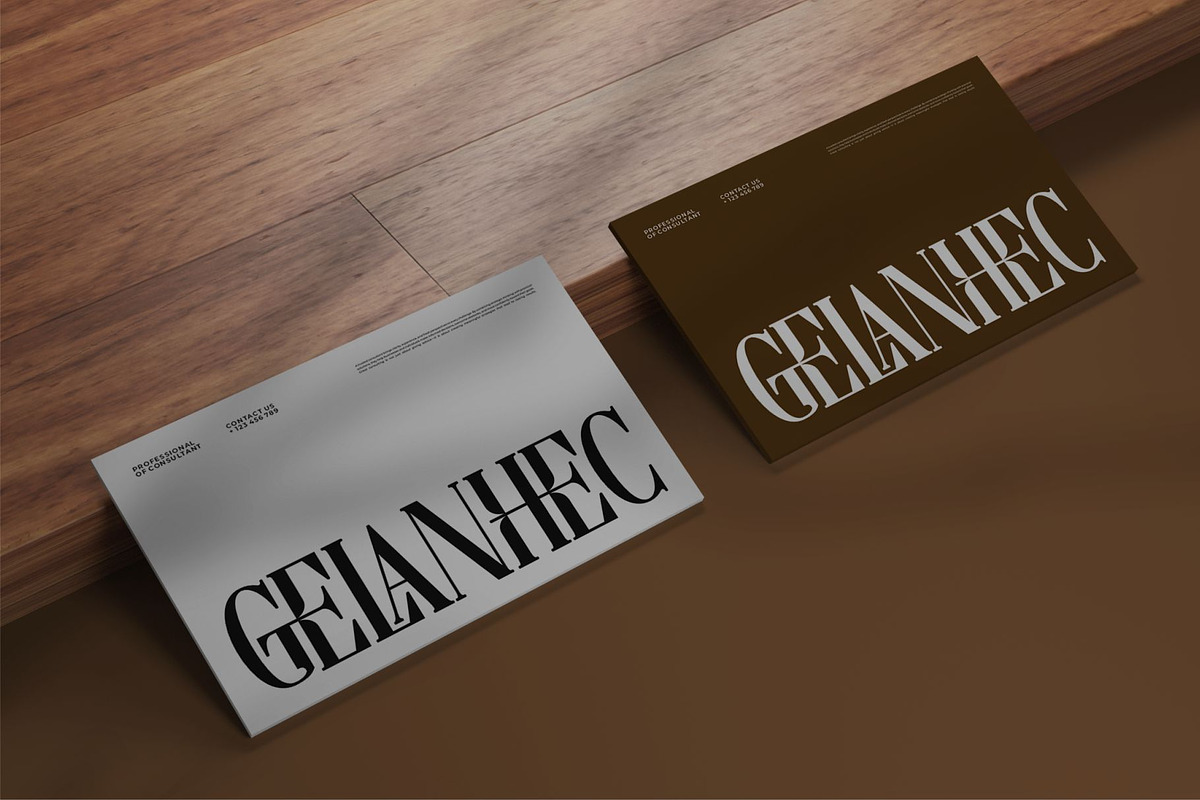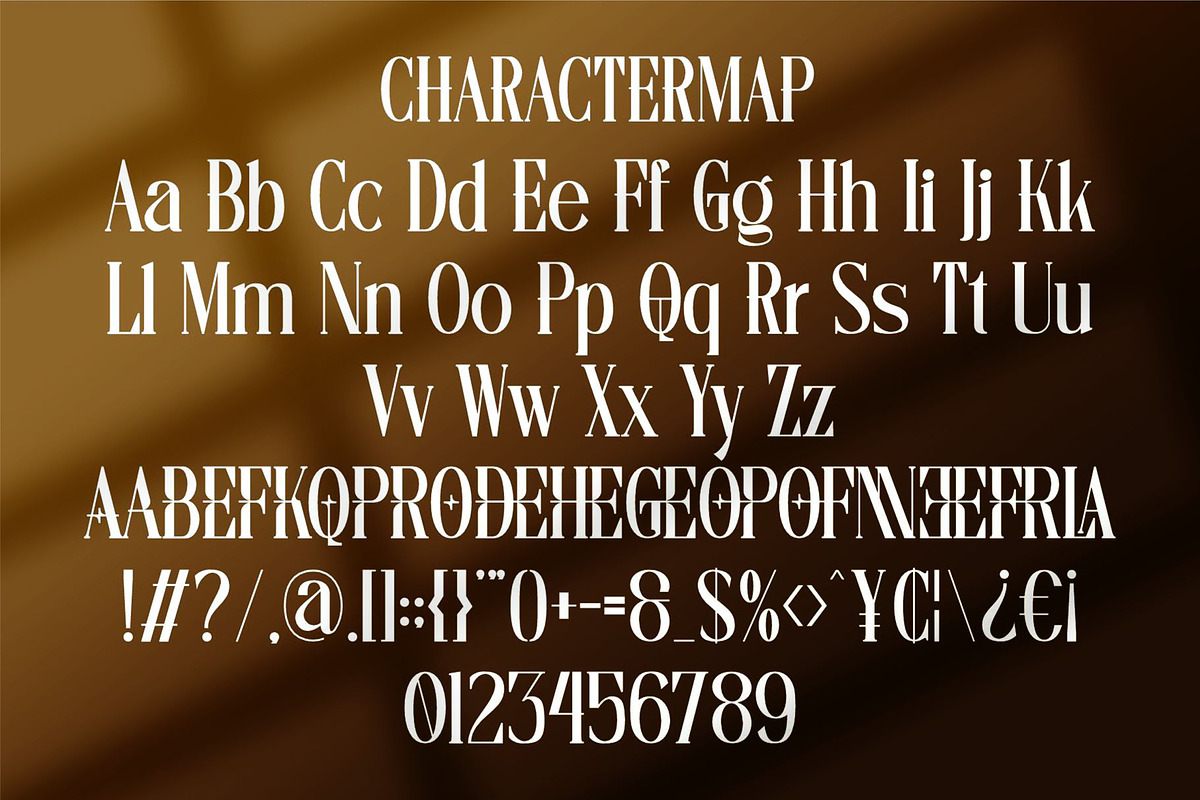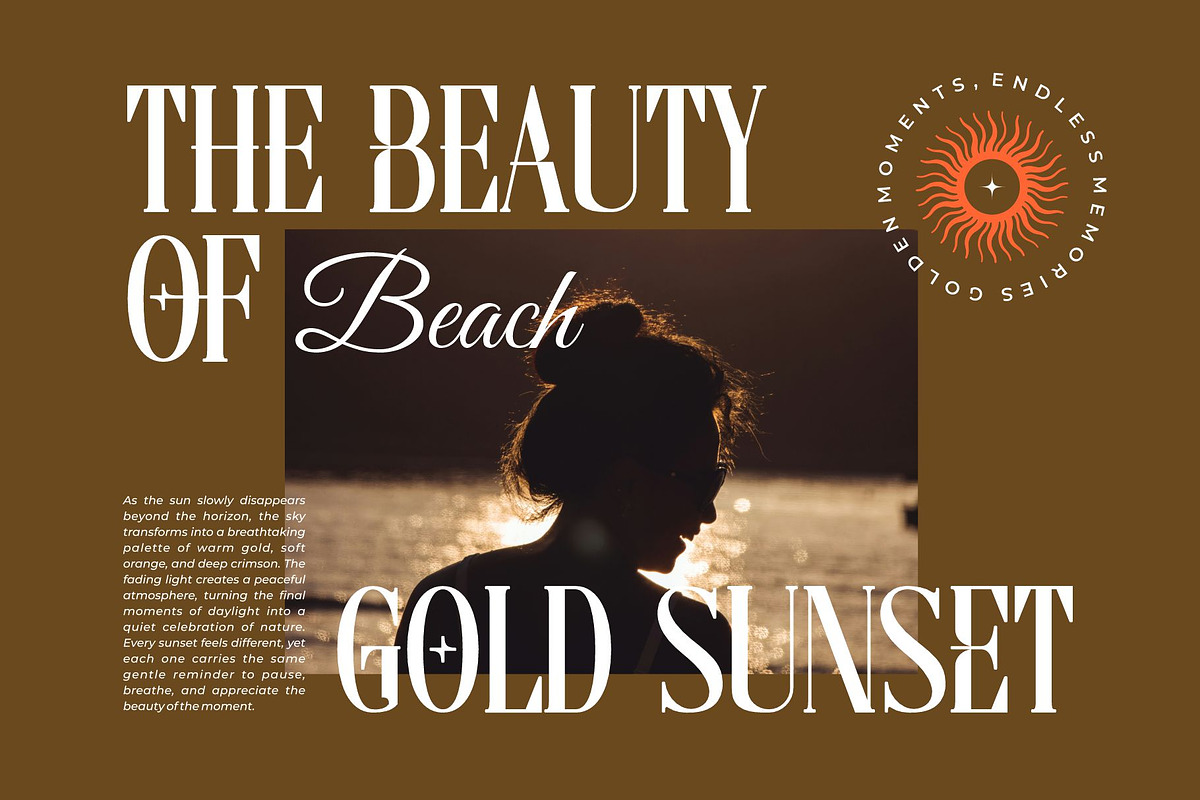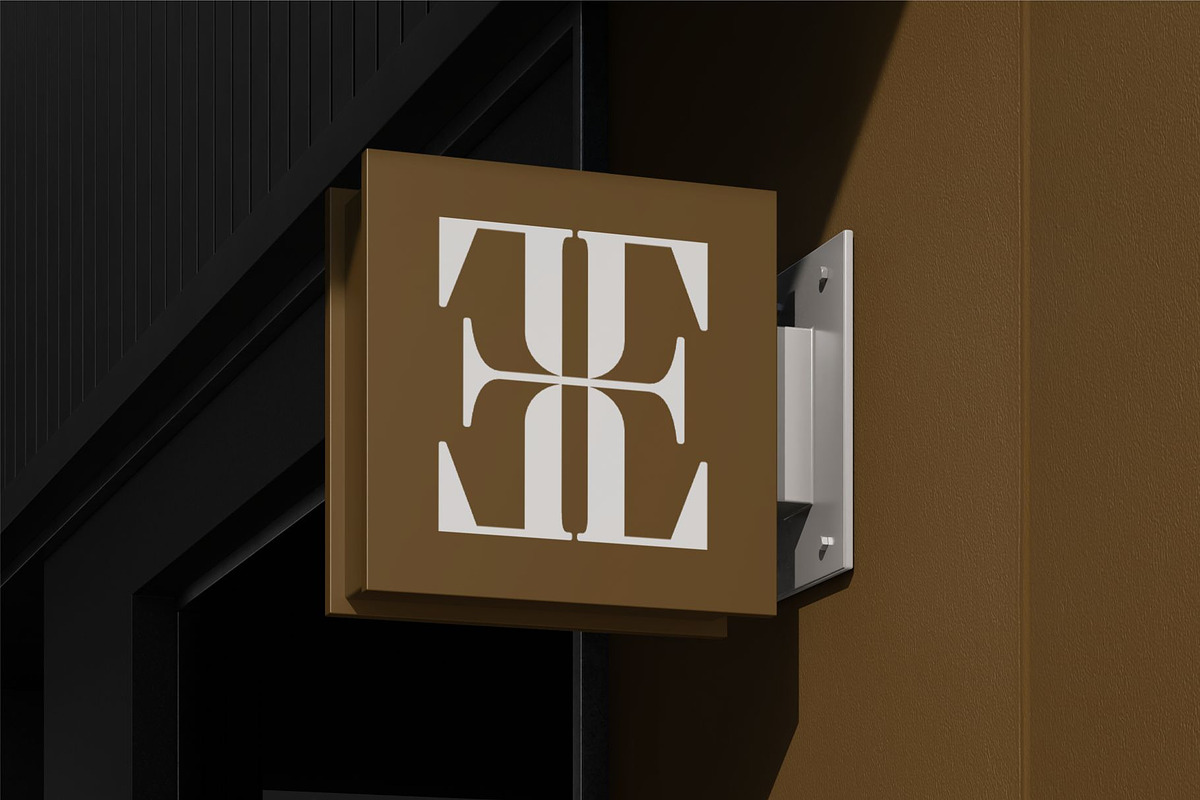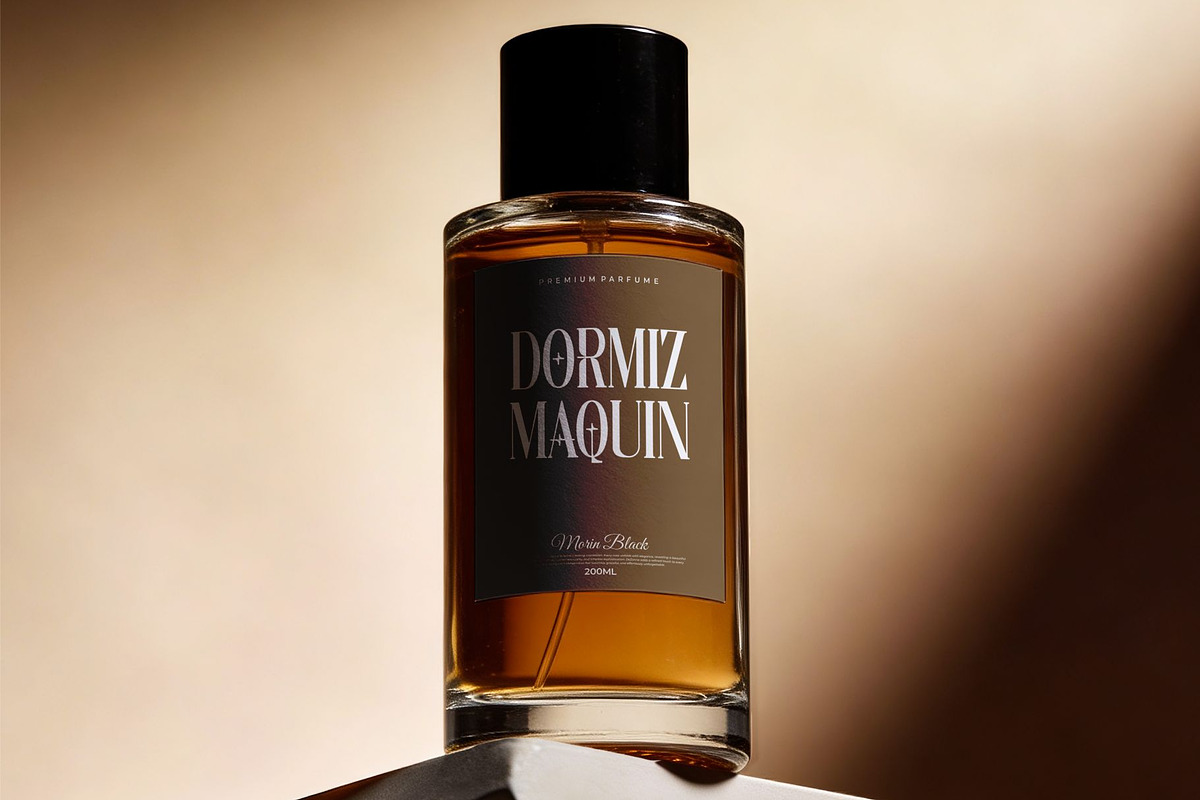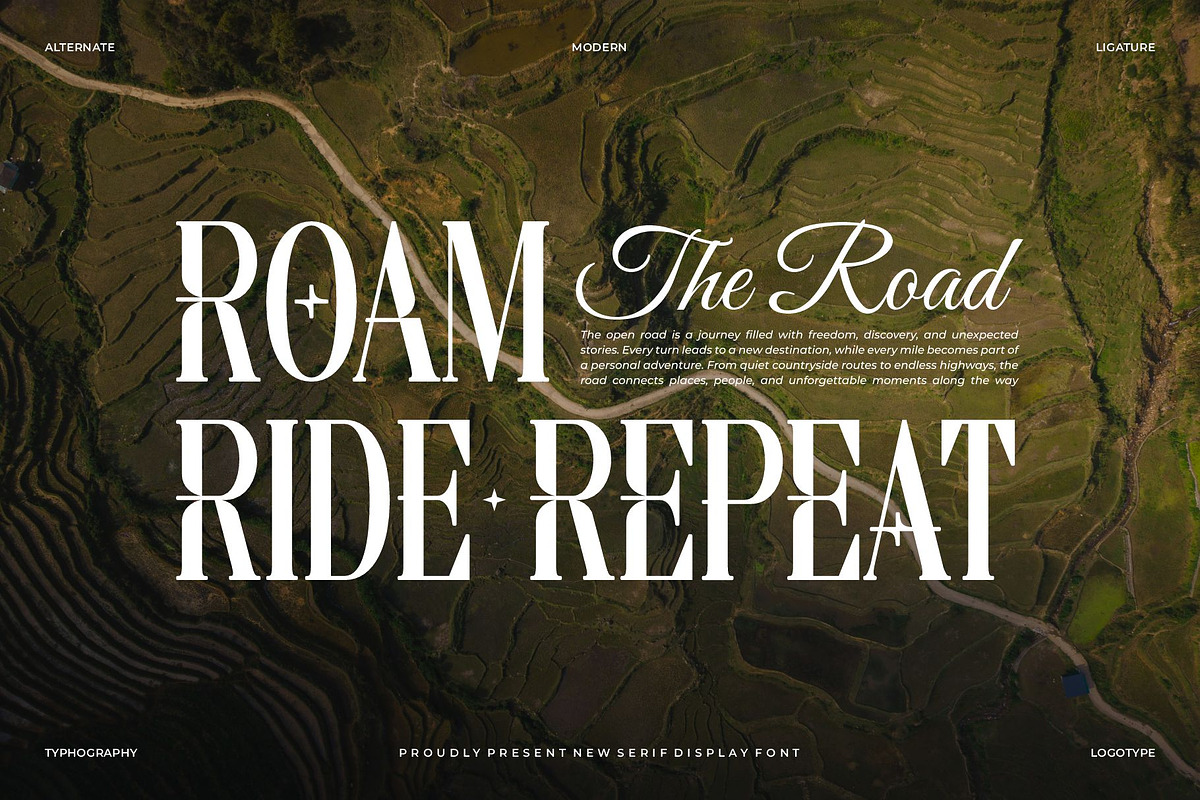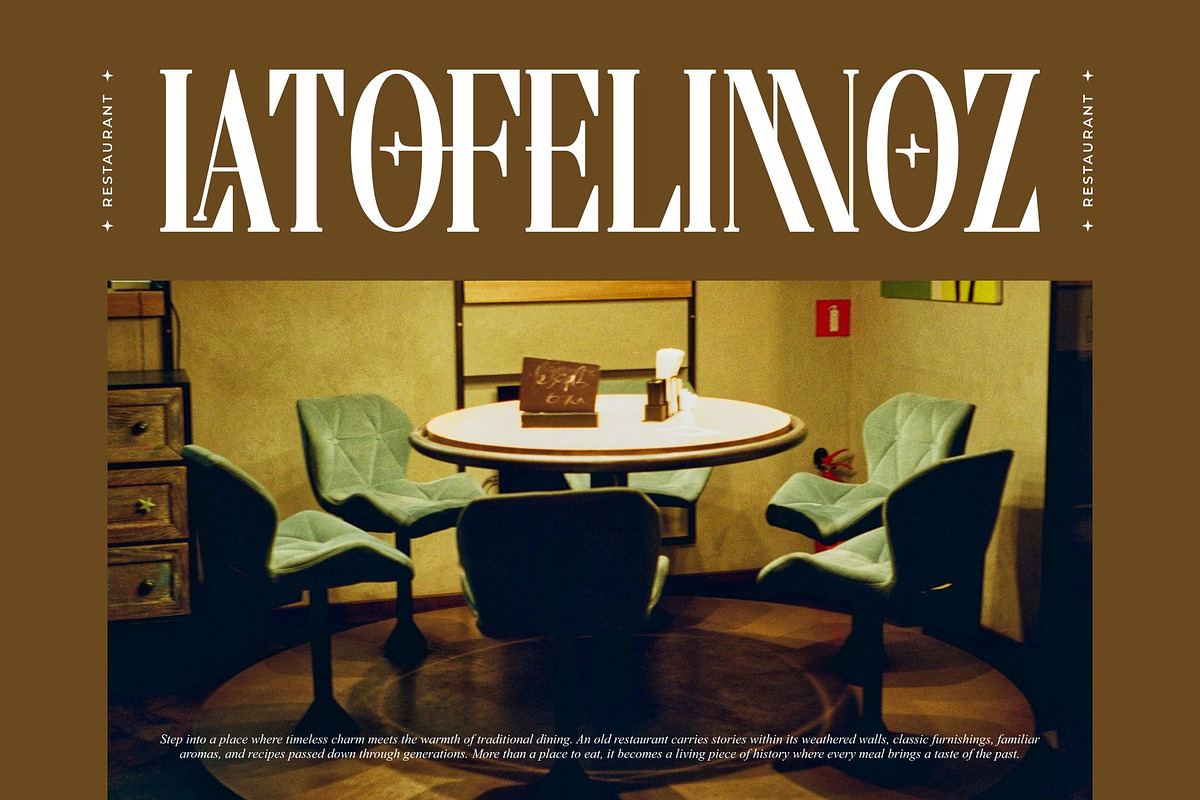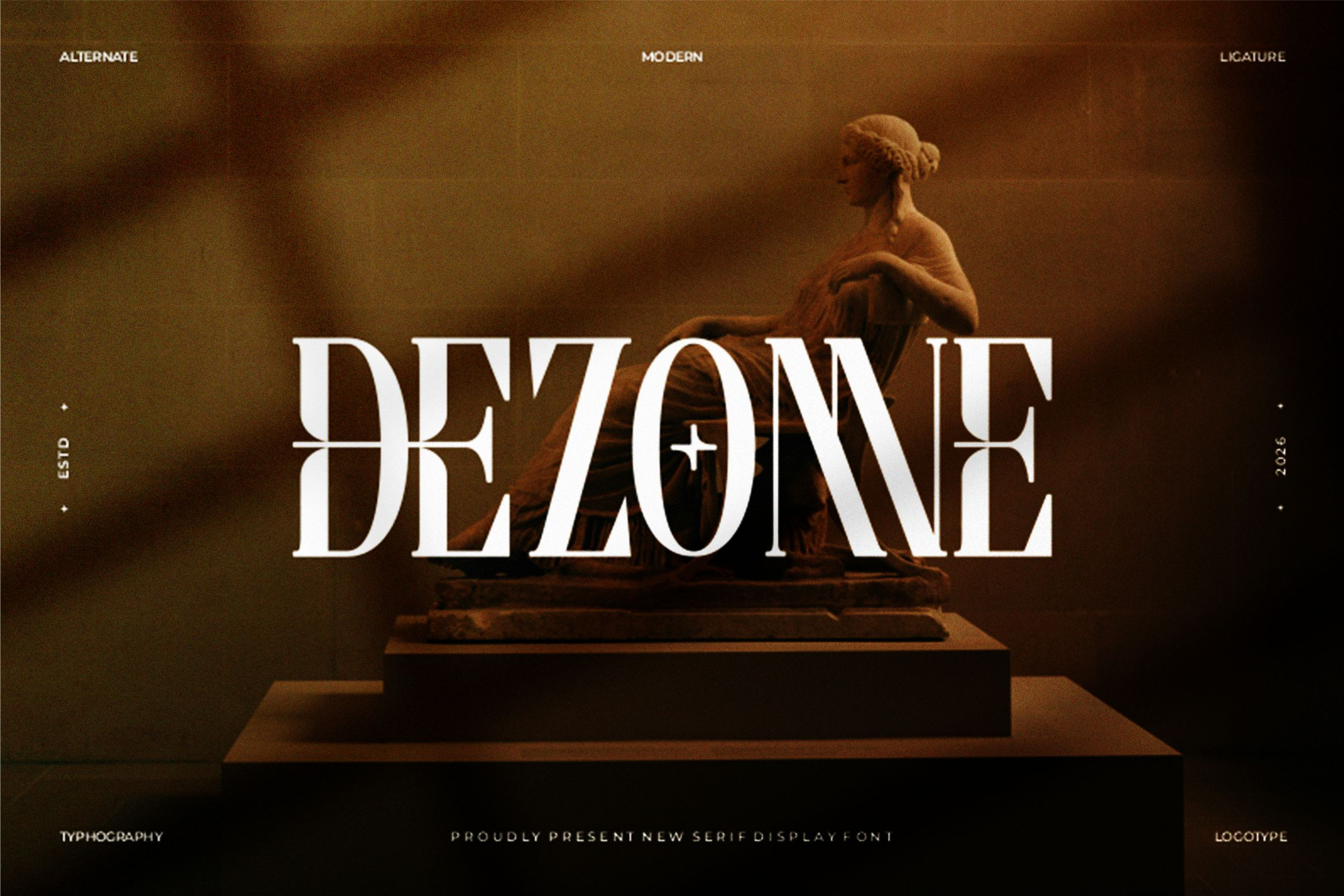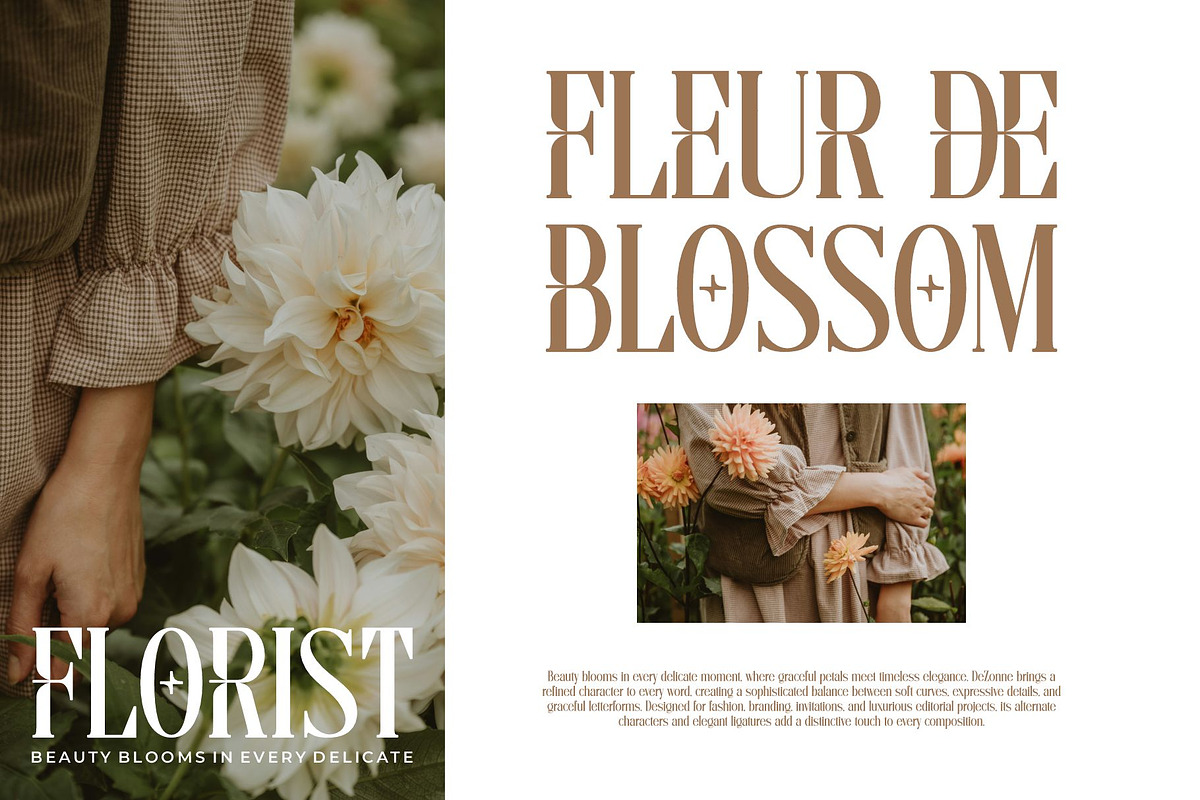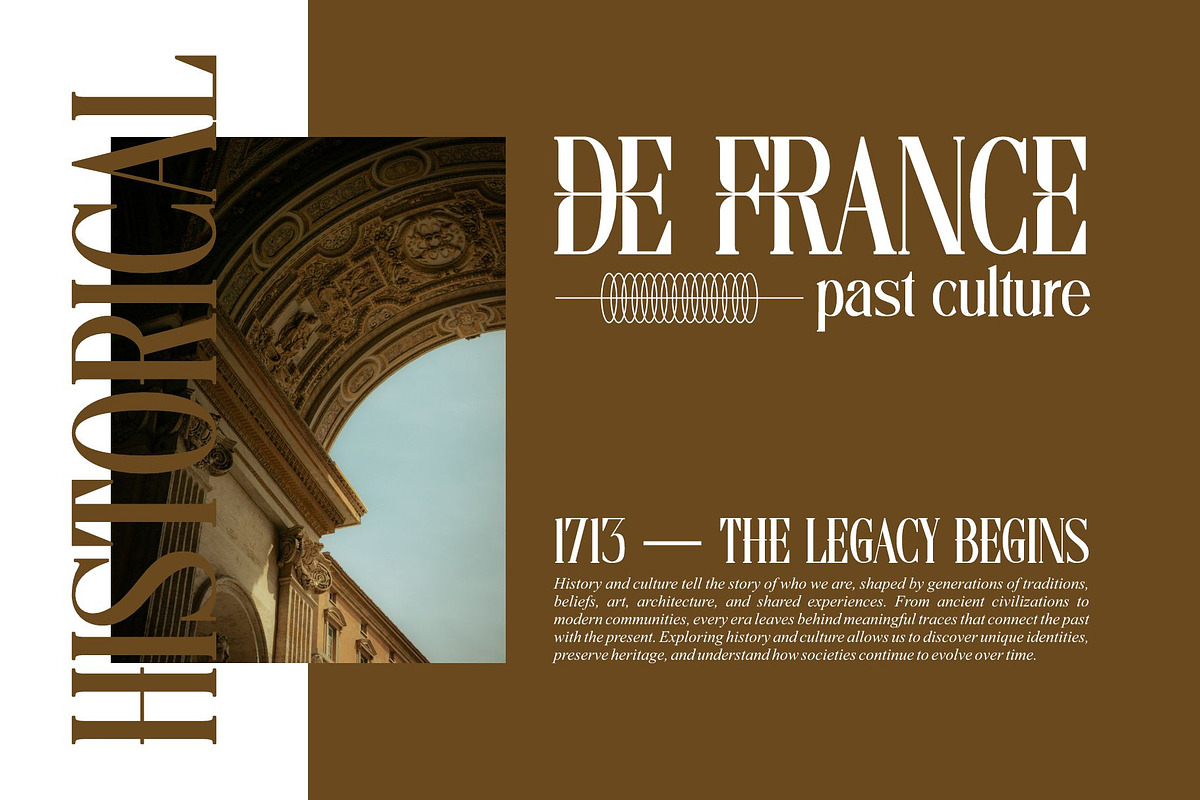
Dezonne || Modern Elegant Serif Font
Dezonne is a versatile, modern and elegant serif font.It has a unique style with stylistic, alternates, ligatures features.
Create unique & beautiful logotype, use it as an elegant solution for your next magazine layout, or choose Pherome for any graphics that require a sleek look with a elegant flair.